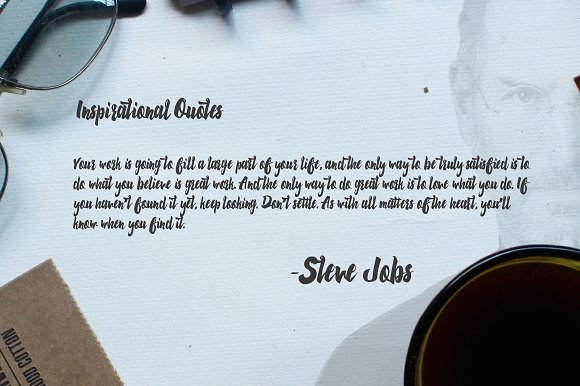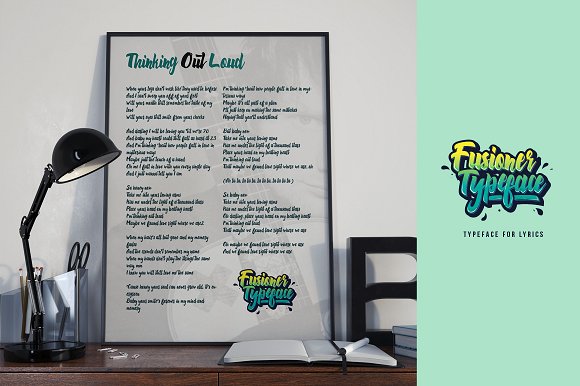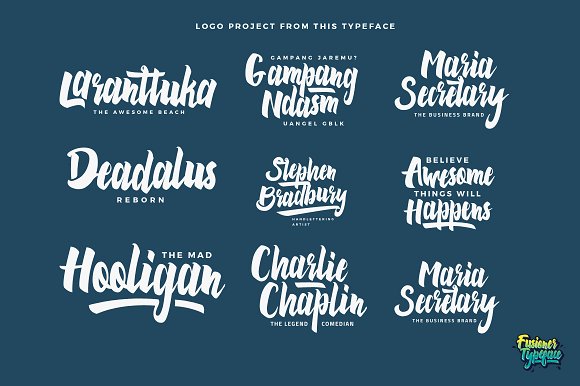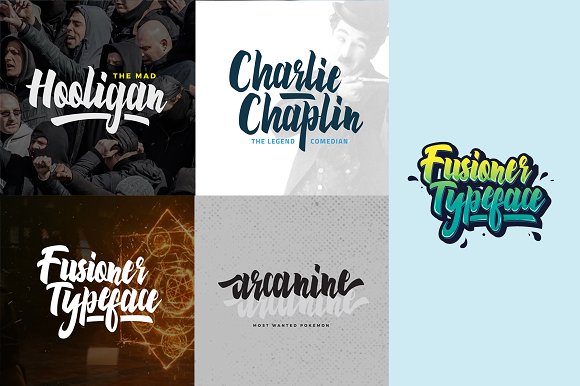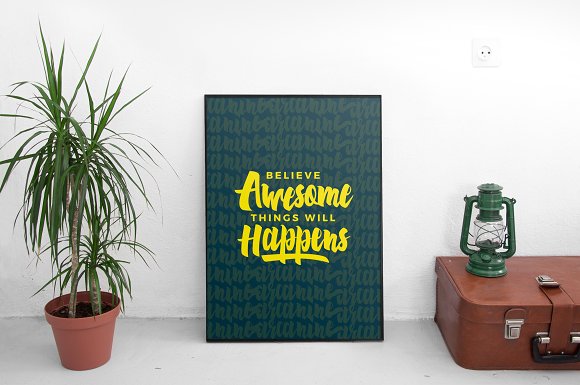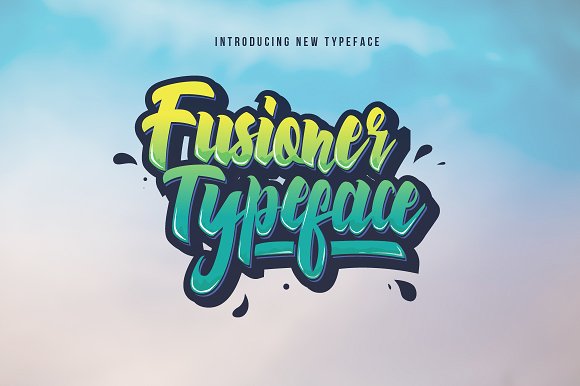
Fusioner Typeface
Introducing Fusioner Typeface a rough Brush Calligrahpy Font with street style, created on november 2016, reflect the Cool and futuristic on one precious font.
and suitable for any design needs, branding, modern advertising design, Art Quote, Book/Cover Title, special events, custom mug, pillow, t-shirts, any brush lettering needs and more.